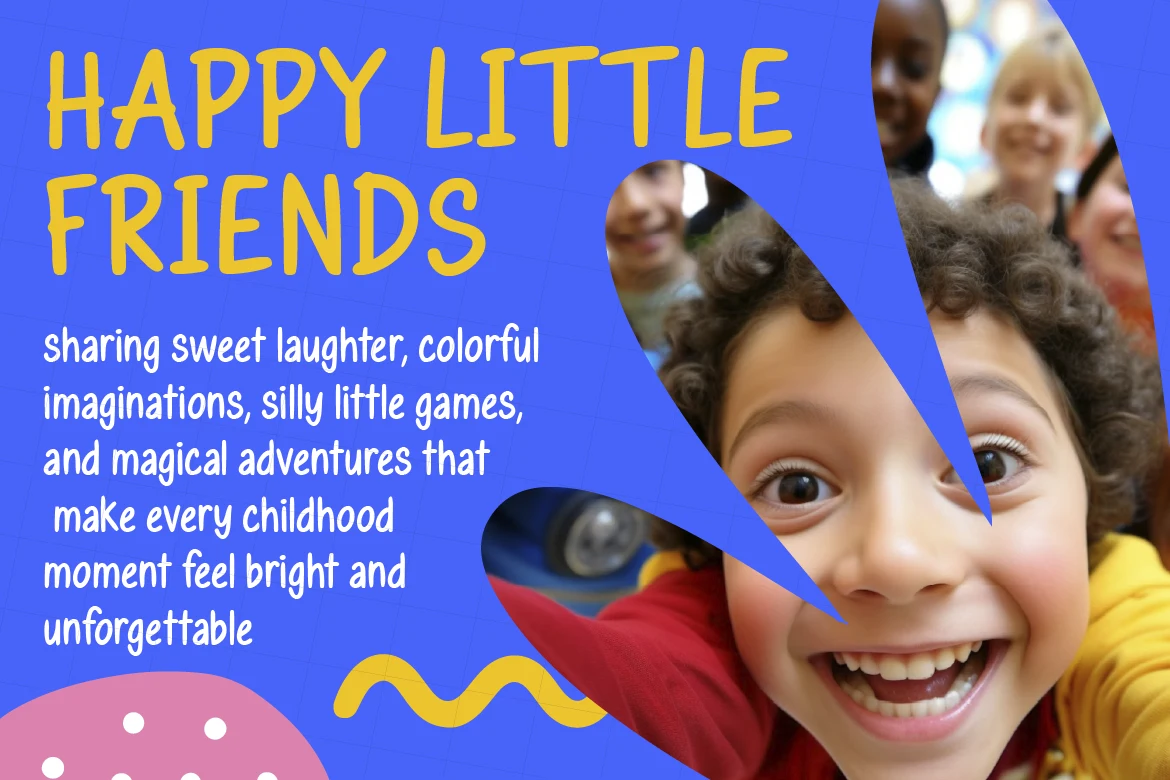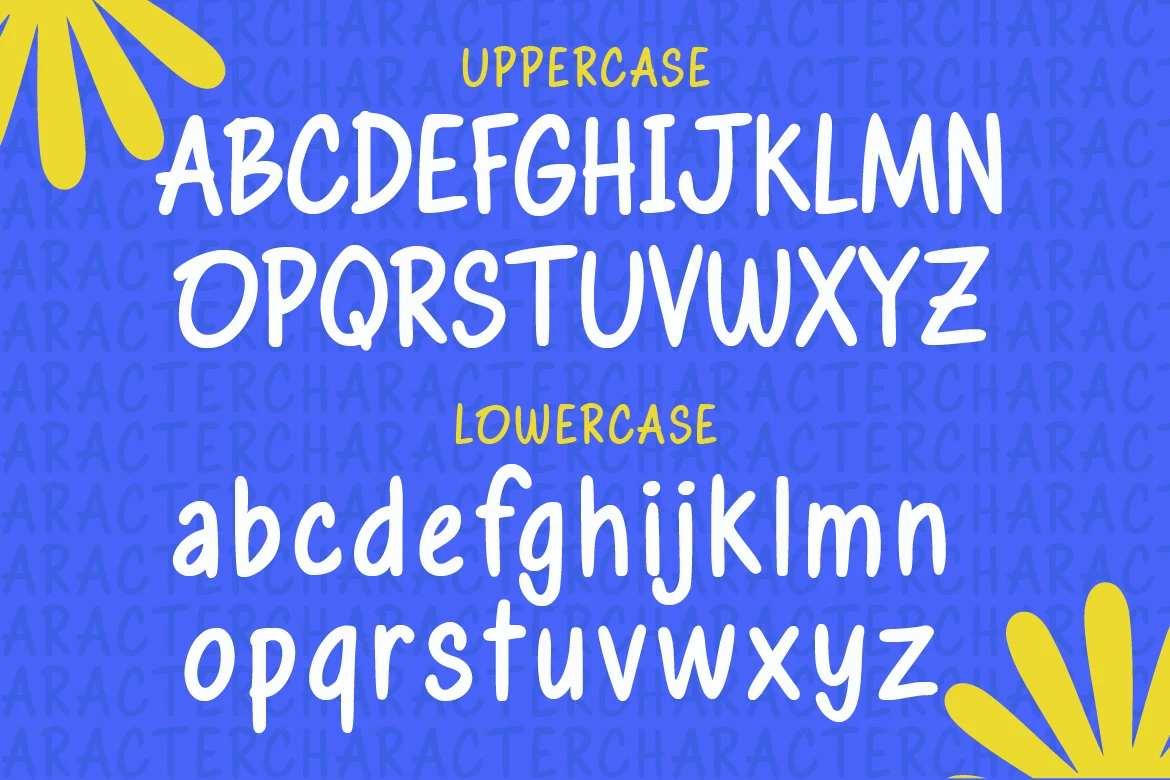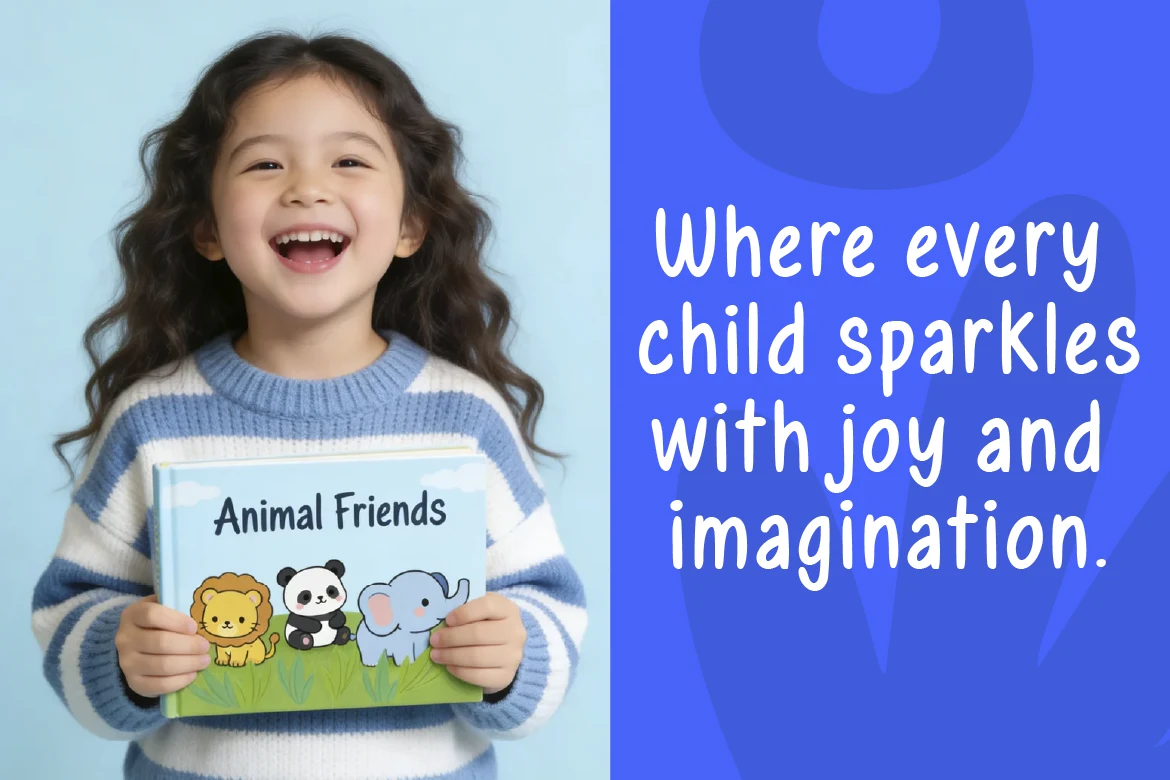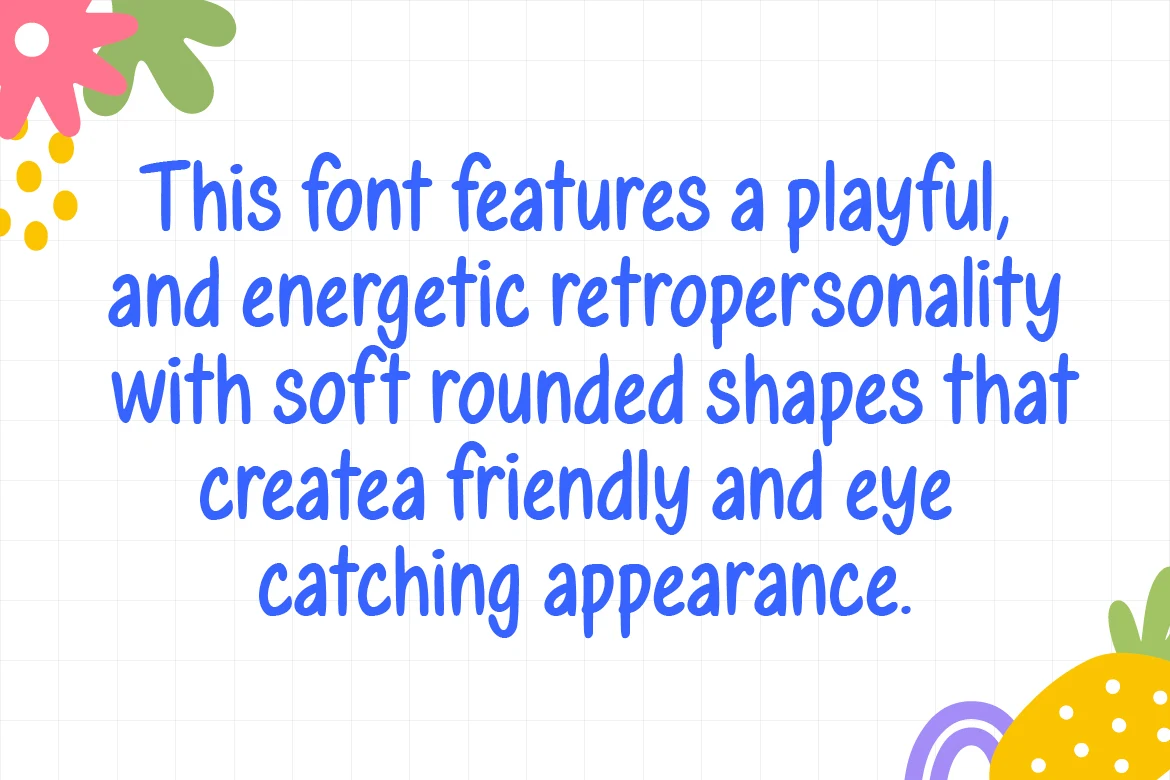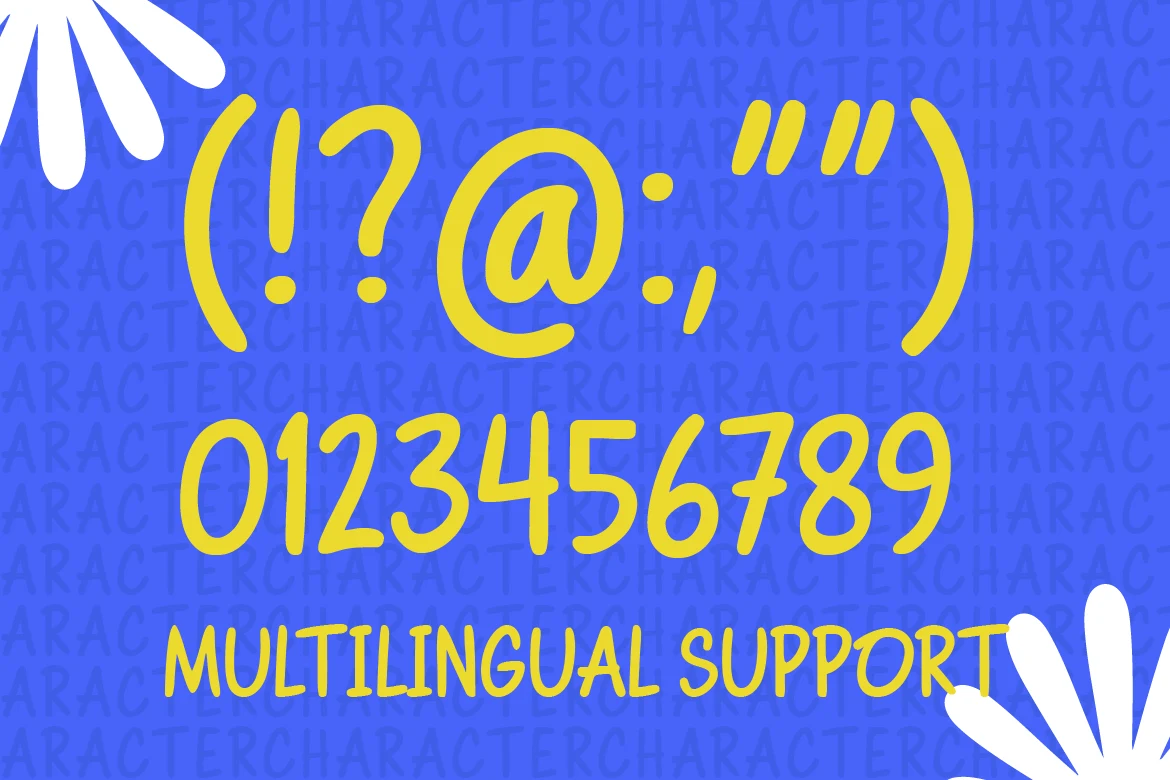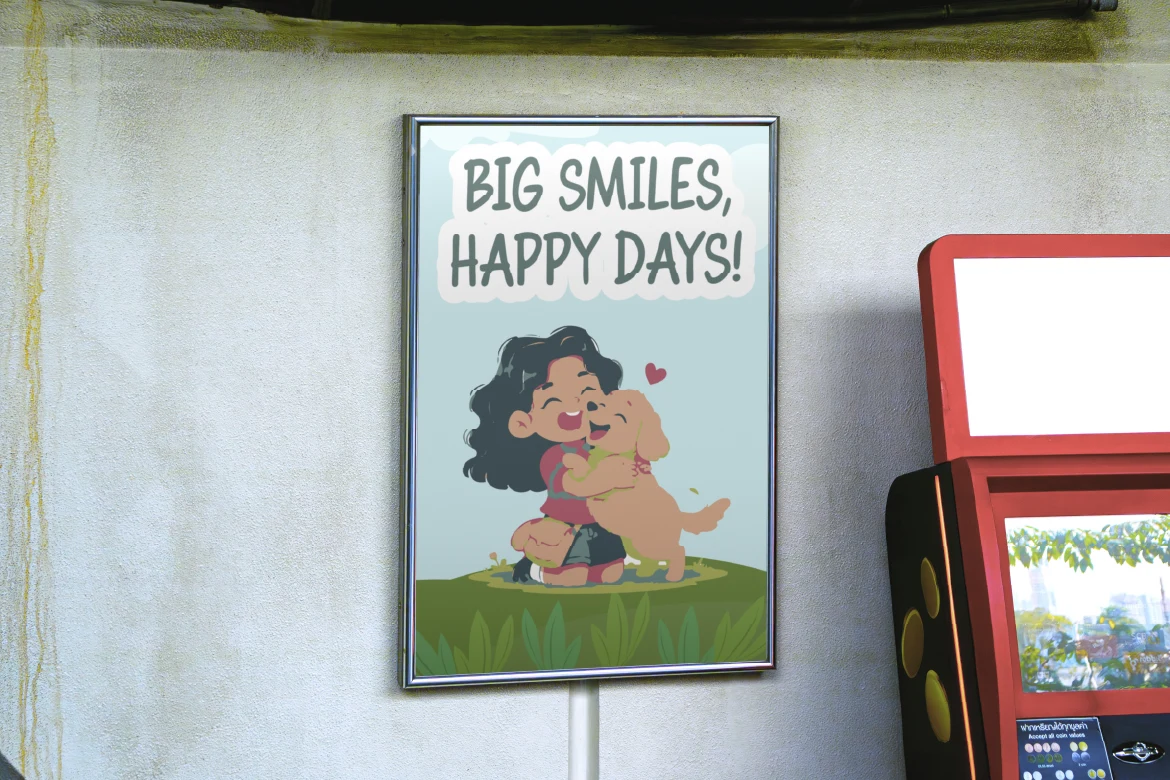
Bluncik
Bluncik is a playful organic display font with an energetic personality. Soft rounded shapes create a friendly, eye-catching look that works well for anything creative and joyful.
Use it for colorful designs, playful games, children’s content, and anything that needs warmth and imagination. The rounded letterforms feel approachable and fun without being too cutesy or overdone.